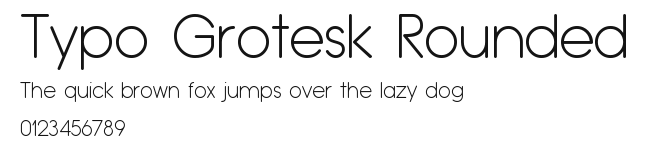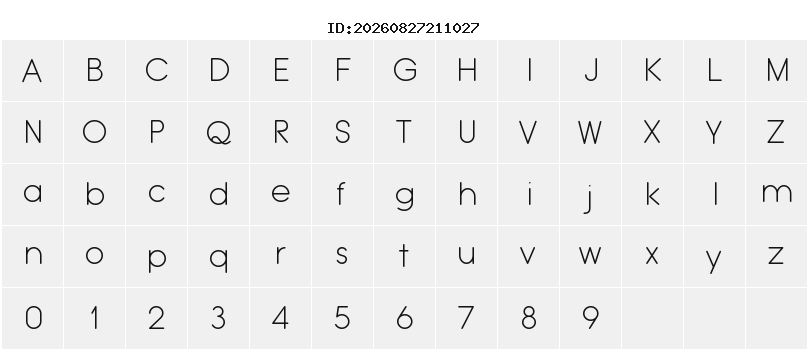
• Font Name: Typo Grotesk Rounded
• Font Style: Light
• Full Font Name: Typo Grotesk Rounded Light
• Manufacturer: StudioTypo
About Typo Grotesk Rounded.otf
Typo Grotesk Rounded.otf is a modern, elegant sans-serif font designed for ultimate readability and visual harmony. Perfect for branding, headlines, web design, and print materials.